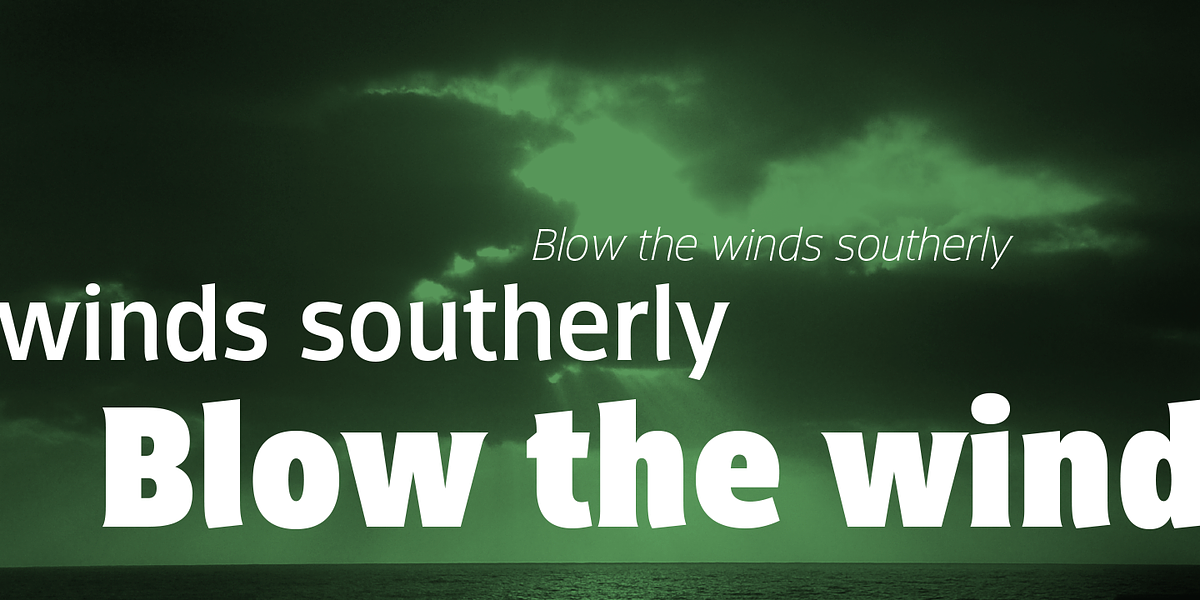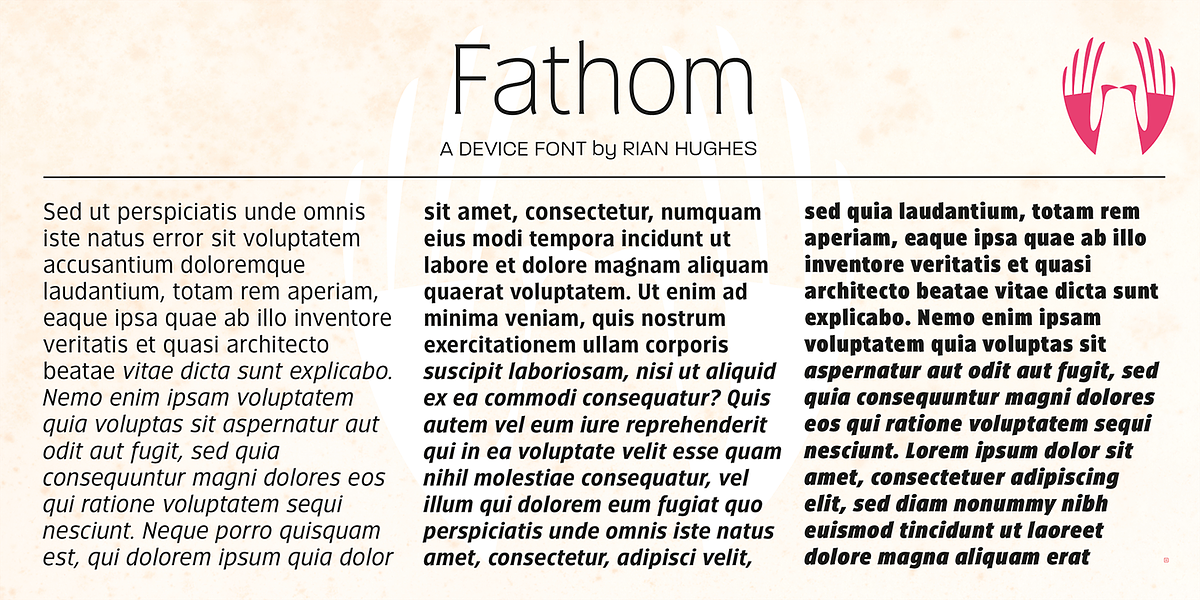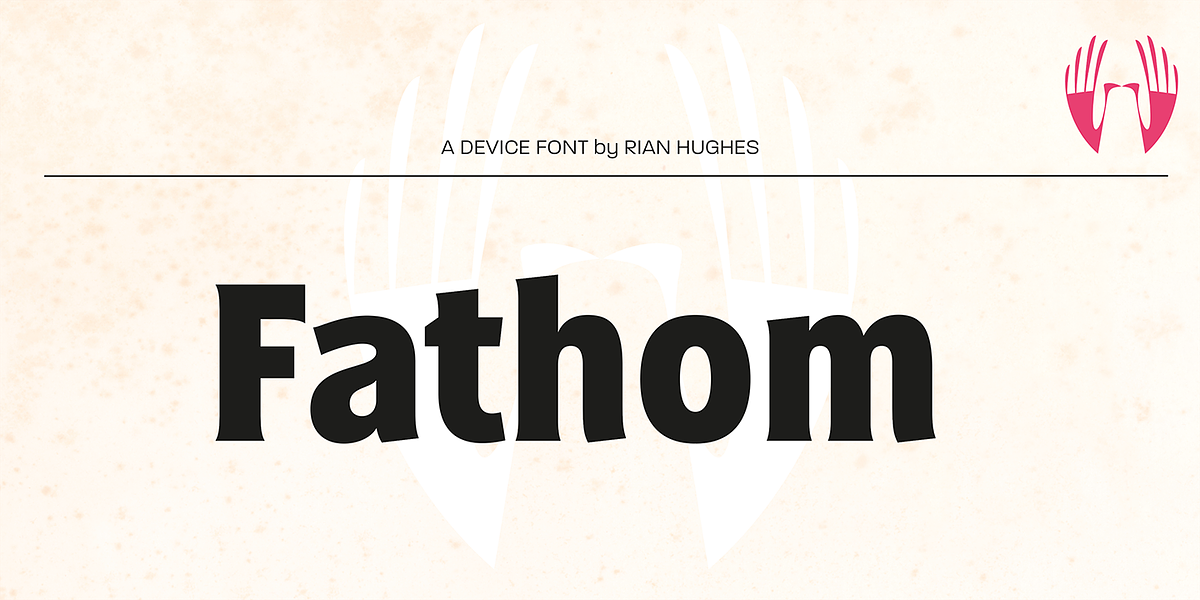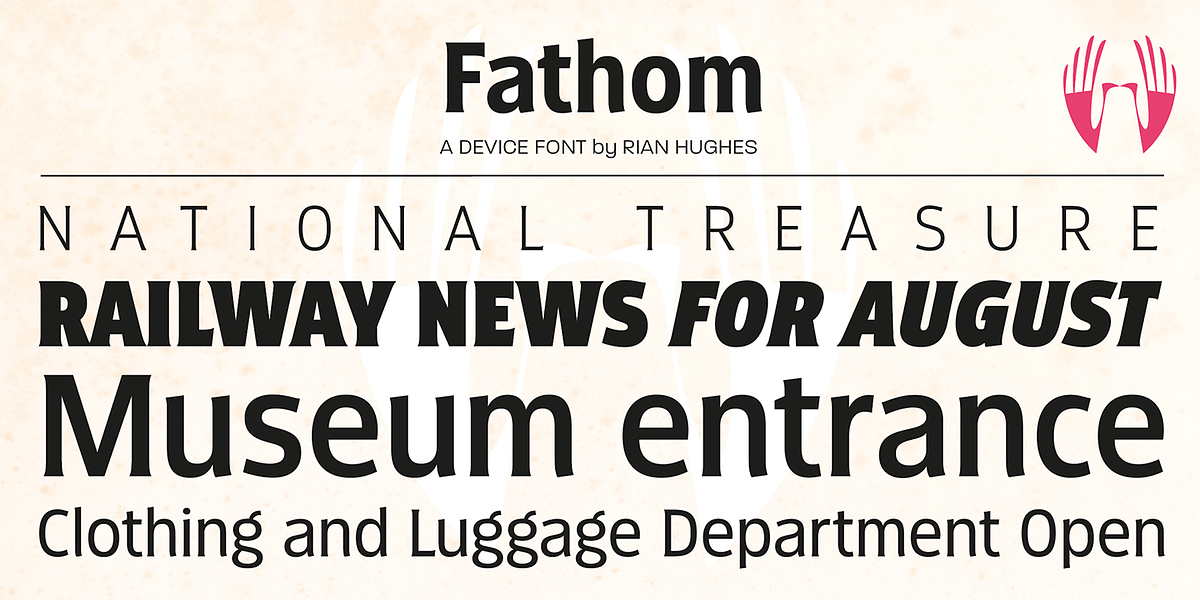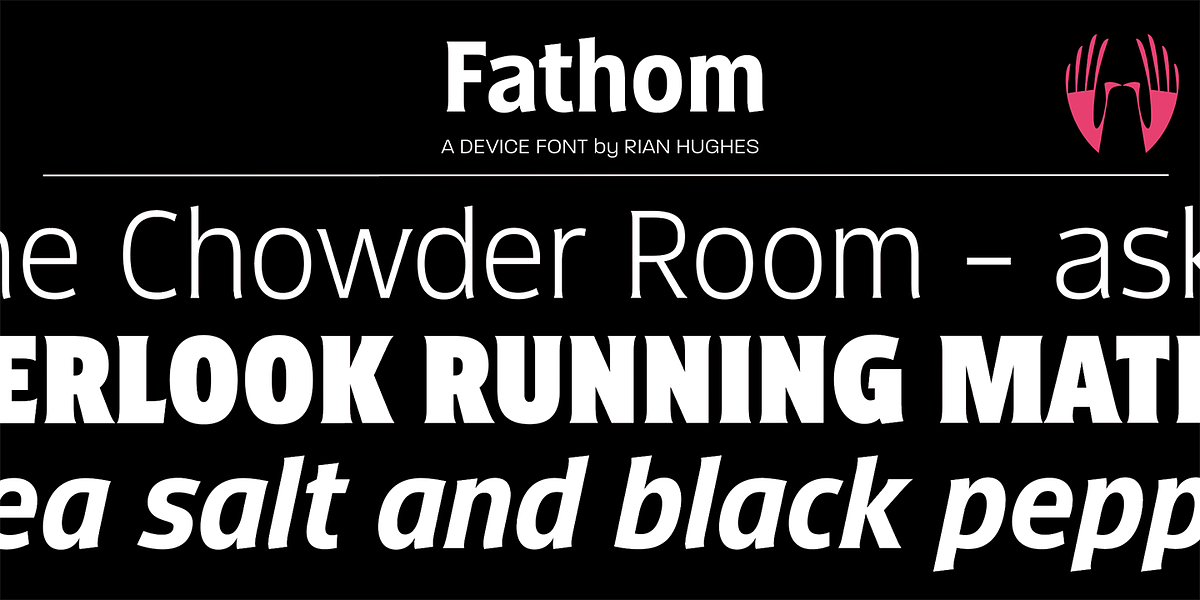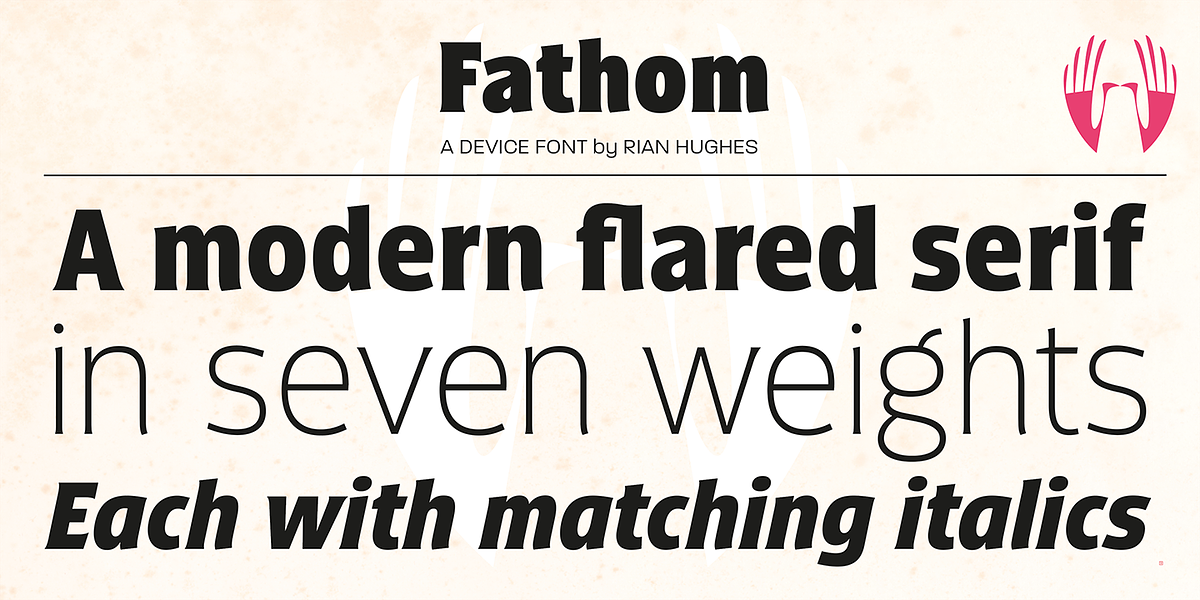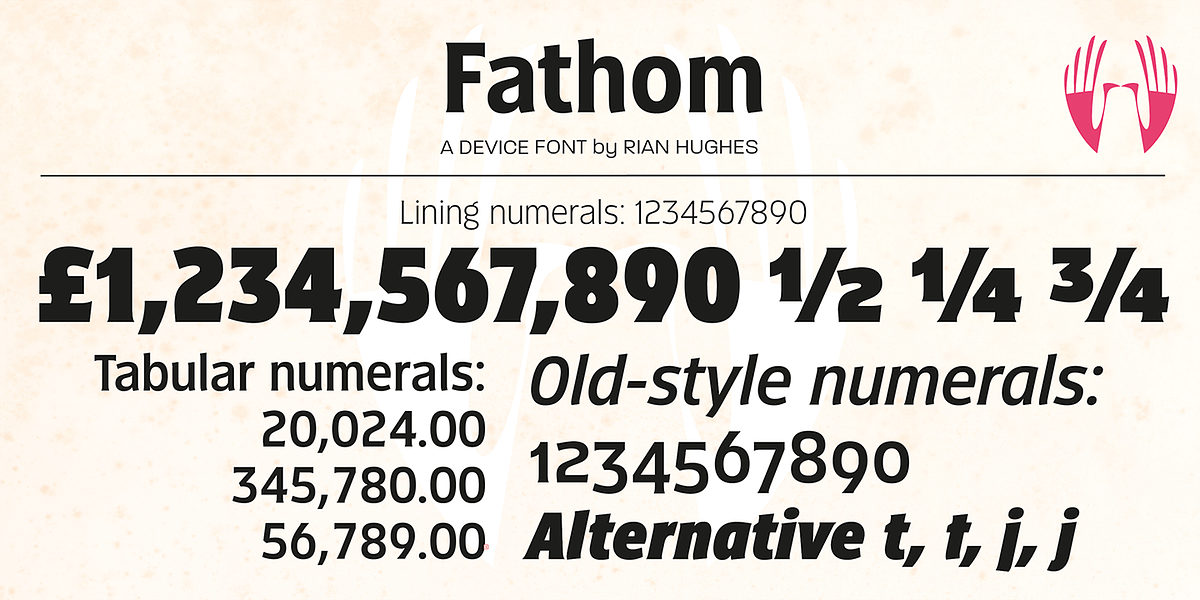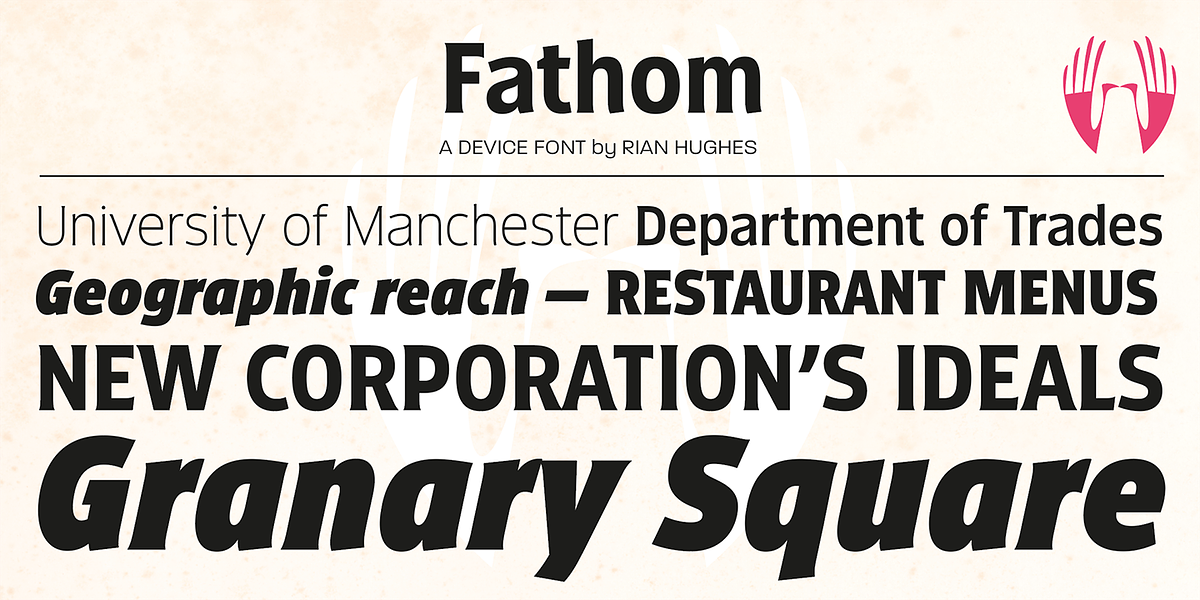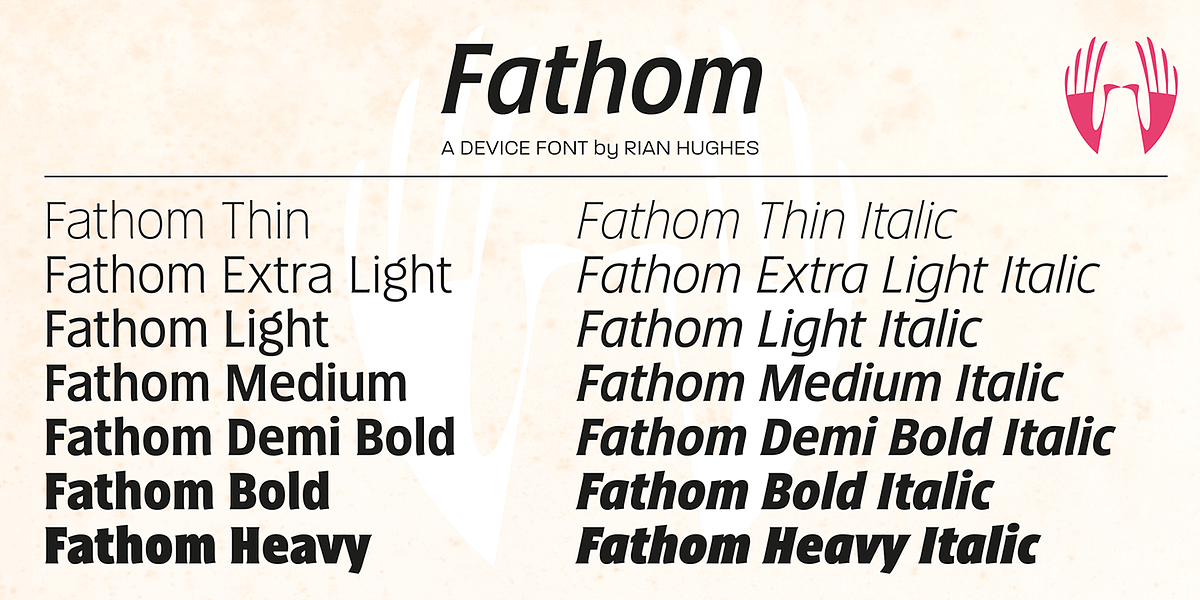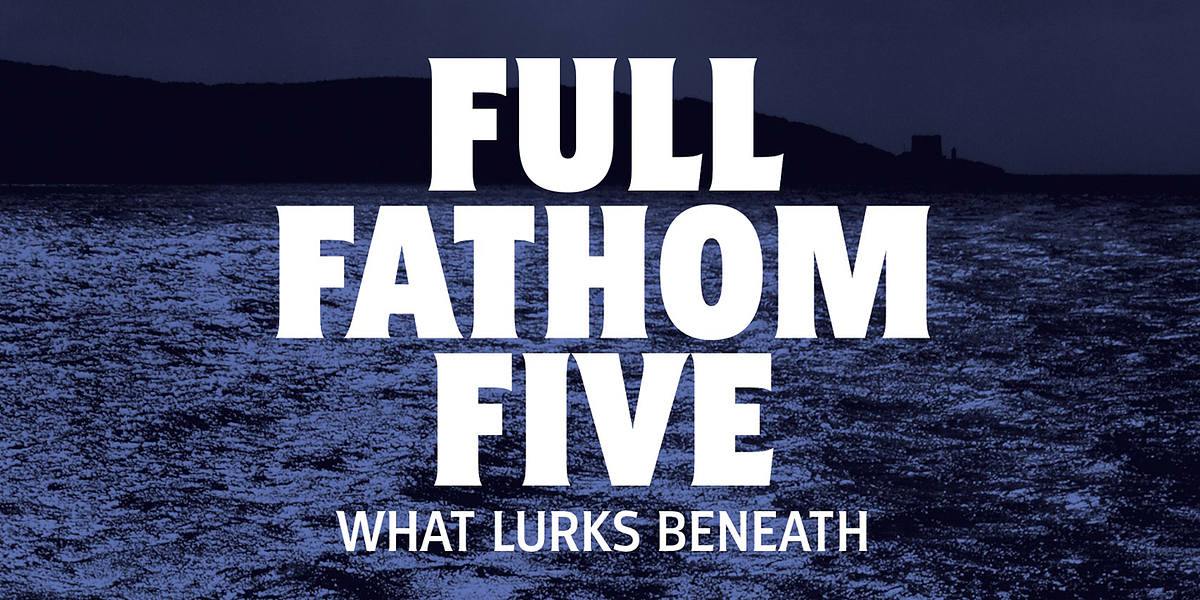
Fathom
Fathom is a well-rounded serif typeface characterized by its elegant flared serifs. Its generous x-height ensures readability, making it suitable for both headlines and body text. The inclusion of old-style and tabular numerals further enhances its versatility for various applications, from corporate branding to heritage projects.